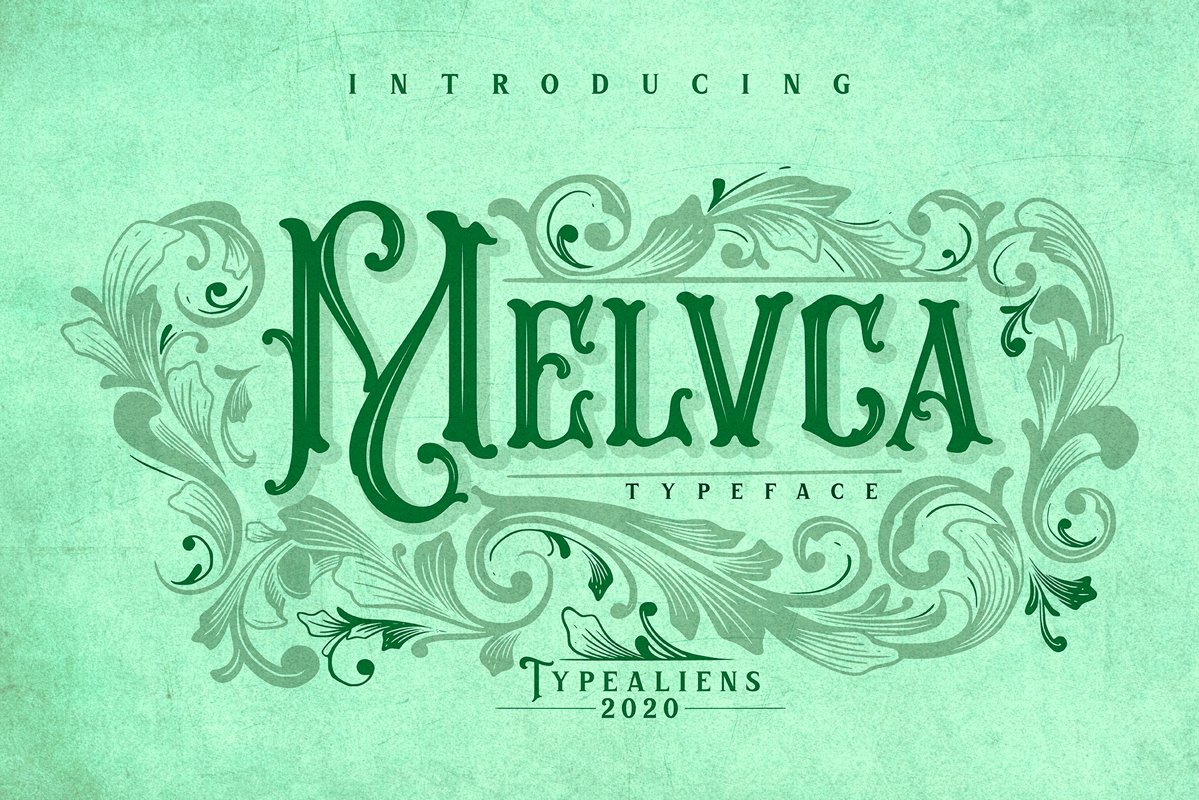
Melvca
MELVCA is a display font with a vintage art nouveau-style theme. Typeface Melvca itself is inspired by the form of leaves / tendrils, like art nouveau features that contain a lot of floral elements.
Melvca will be very suitable for making logo badge designs, liquor label designs, poster designs, packaging designs, and others. and supported by extra bonuses in the form of ornaments, illustrations and a little badge template, so it is expected to help in making your design layout later.
Melvca has beautiful letters both Lowercase, Uppercase, Numbers and Punctuation, and there are several Alternative Characters as supporters. In addition to OTF and TTF files from the font itself, we also include extra bonus Ornaments, Illustrations and Badges in the form of AI and EPS files.